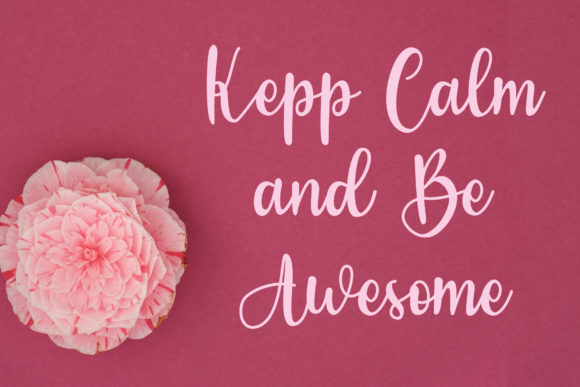
Beautiful Queen Font
db-ku.com - Script & Handwritten -- Beautiful Queen is a sweet, whimsical and flowing script font. Featuring characters that dance along the baseline, this font will add a luxury spark to any design project that you wish to create!